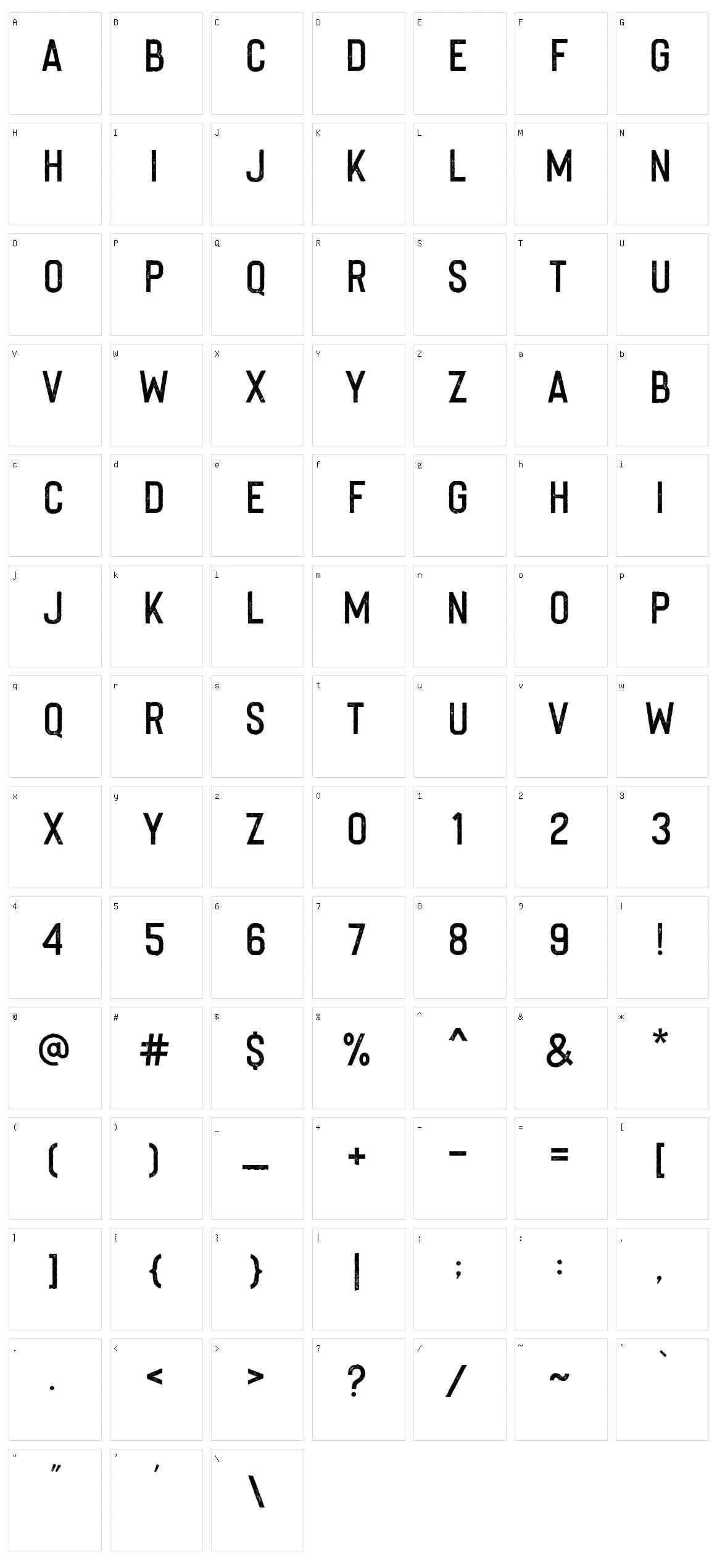
The free font Imperfecta Rough is carefully designed by 50Fox Studio, showcasing a thoughtful balance of creativity and usability and falls under the Eroded font style. When you download the ZIP file, it contains only 259.11 KB of font files, making it lightweight and quick to download. Please review the license details below to understand permitted usage and distribution rights. If license information is not available, we recommend using this font for personal projects only or contacting the author directly for commercial usage permissions.